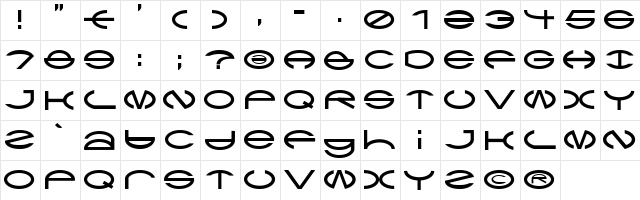
CType Regular
Design Context for CType Typeface
CType is a composed and adaptable typeface that performs quietly and consistently across a wide range of design contexts.